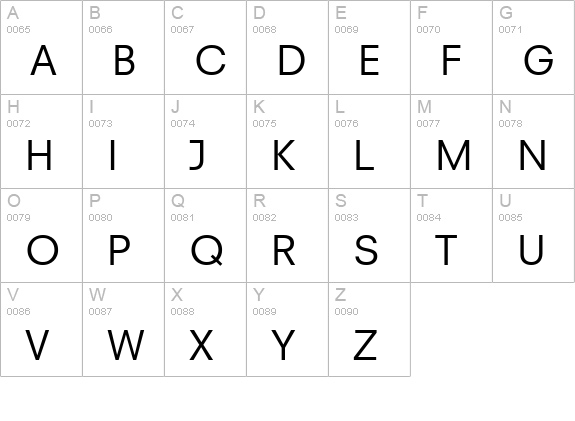
Parallax SSi Font Details
Parallax SSi font is a visually stunning typeface that effortlessly combines modern sophistication with a touch of retro charm. Its sleek and stylish design is perfect for creating eye-catching headlines, elegant logos, and captivating branding materials. With its clean lines and unique letterforms, Parallax SSi font exudes a sense of contemporary elegance that is bound to leave a lasting impression. Whether used in print or digital media, this versatile font effortlessly adapts to various design projects, adding a touch of modernity and sophistication. But what truly sets Parallax SSi font apart is its accessibility. This font is freely available to download at FontsMarket.com, making it an ideal choice for budget-conscious designers, students, and enthusiasts looking to enhance their creative projects without breaking the bank. By offering this font for free, the creators of Parallax SSi have made it possible for anyone to access its stunning aesthetic and unleash their creative potential. Embrace the power of Parallax SSi font and transform your designs into visually captivating masterpieces. Download this remarkable typeface today at FontsMarket.com and experience the freedom to create without limitations.